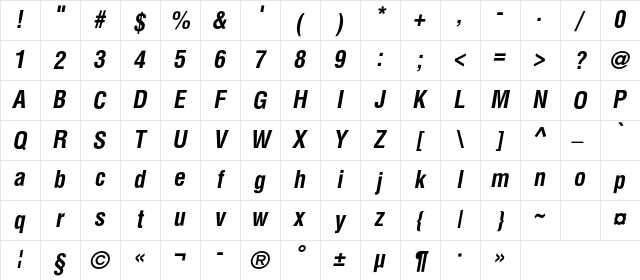
Complete AGLettericaCondensedC Bold Italic glyph index. Displaying only characters natively supported by AGLettericaCondensedC Bold Italic font.
AGLettericaCondensedC is a composed and adaptable typeface that performs quietly and consistently across a wide range of design contexts. The slanted form adds forward momentum and visual energy. Its bold stroke weight gives it real presence on the page. Its narrow stance lets it pack a punch even in space-constrained designs.
Pro Tip: Use AGLettericaCondensedC for emphasis, pull quotes, and subheadings where its slanted energy can add rhythm to the layout.